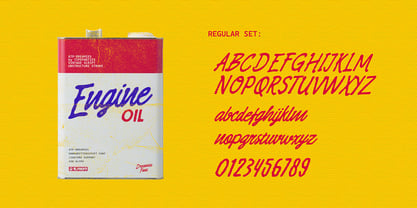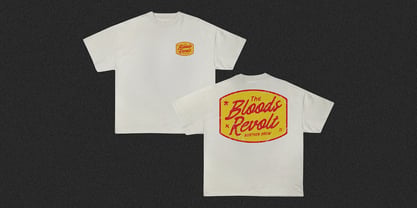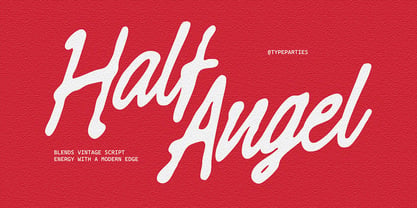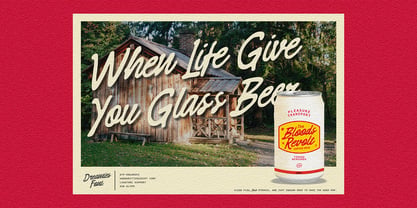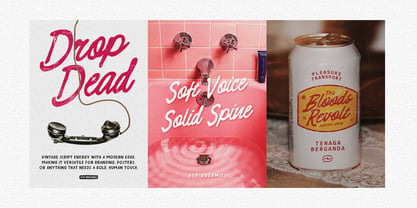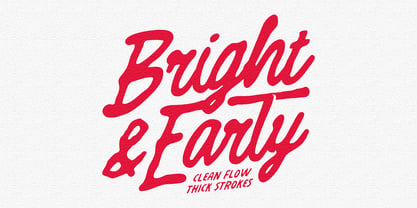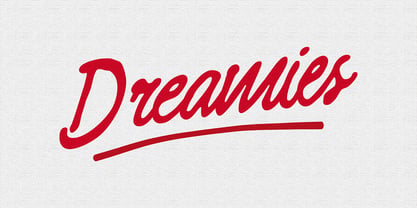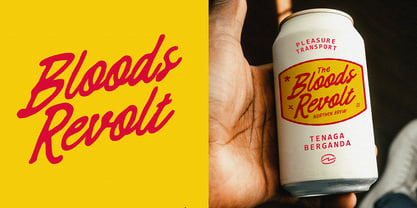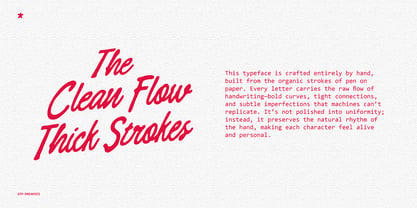
ATP Dreamies
by Typeparties
The ATP Dreamies Font Family was designed by Thufail Al ghifary and published by Typeparties. ATP Dreamies contains 1 styles. More about this family
This typeface is meticulously handcrafted, drawing inspiration from the organic strokes of pen on paper. Each letter embodies the authentic flow of handwriting, featuring bold curves, tight connections, and unique imperfections that machines cannot replicate. Rather than conforming to uniformity, it maintains the natural rhythm of the hand, giving each character a lively and personal touch. The thick strokes convey strength, while the fluid motion introduces an effortless smoothness, reminiscent of a signature gracefully extending across a page. This typeface seamlessly merges vintage script energy with a contemporary edge, making it ideal for a variety of applications such as branding, posters, and any project that seeks a bold, human touch.